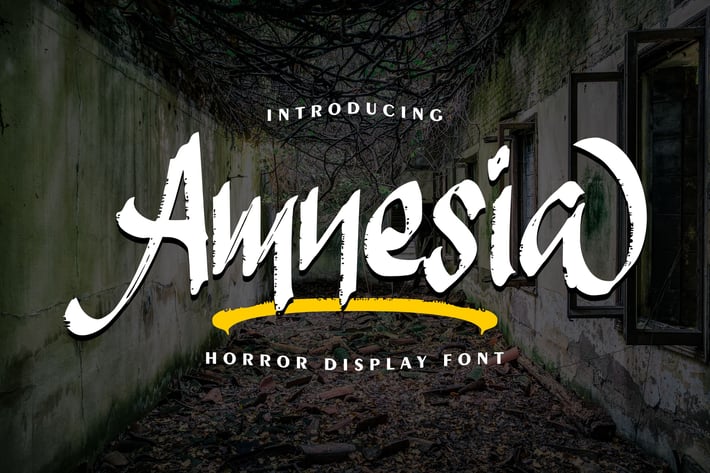
Amnesia | Horror Display Font with a calligraphy style, So beautiful on invitation like greeting cards, branding materials, business cards, quotes, posters, and more!